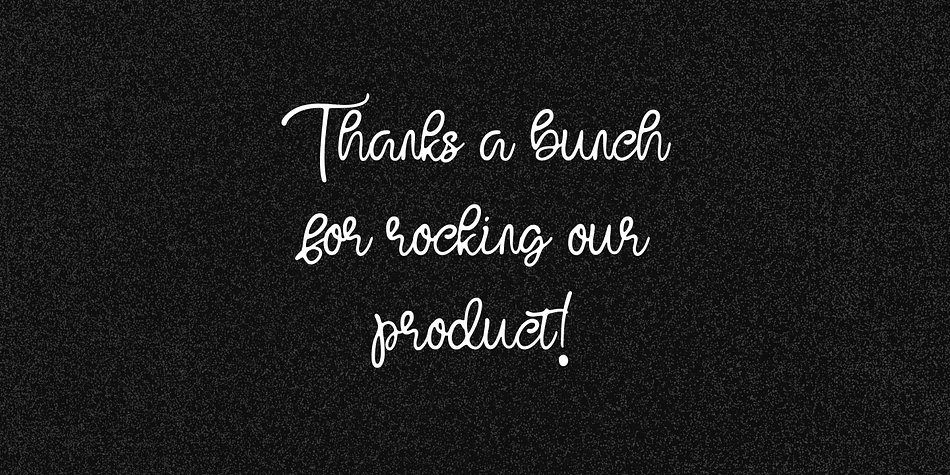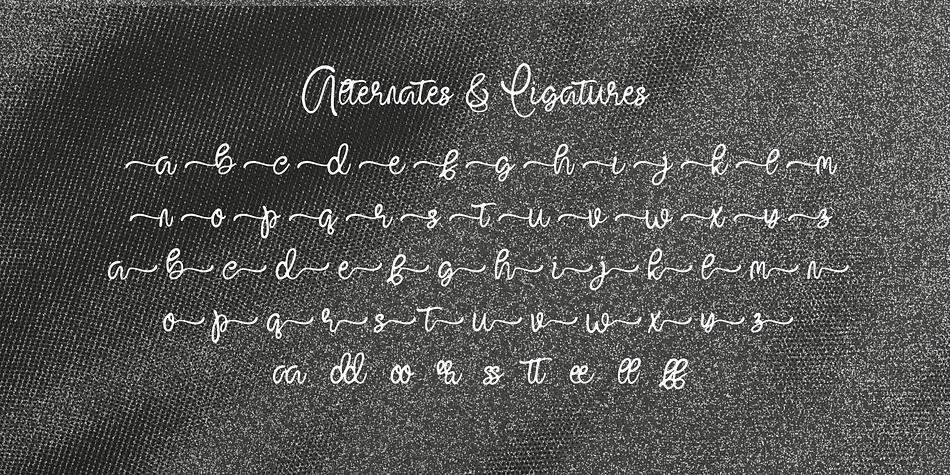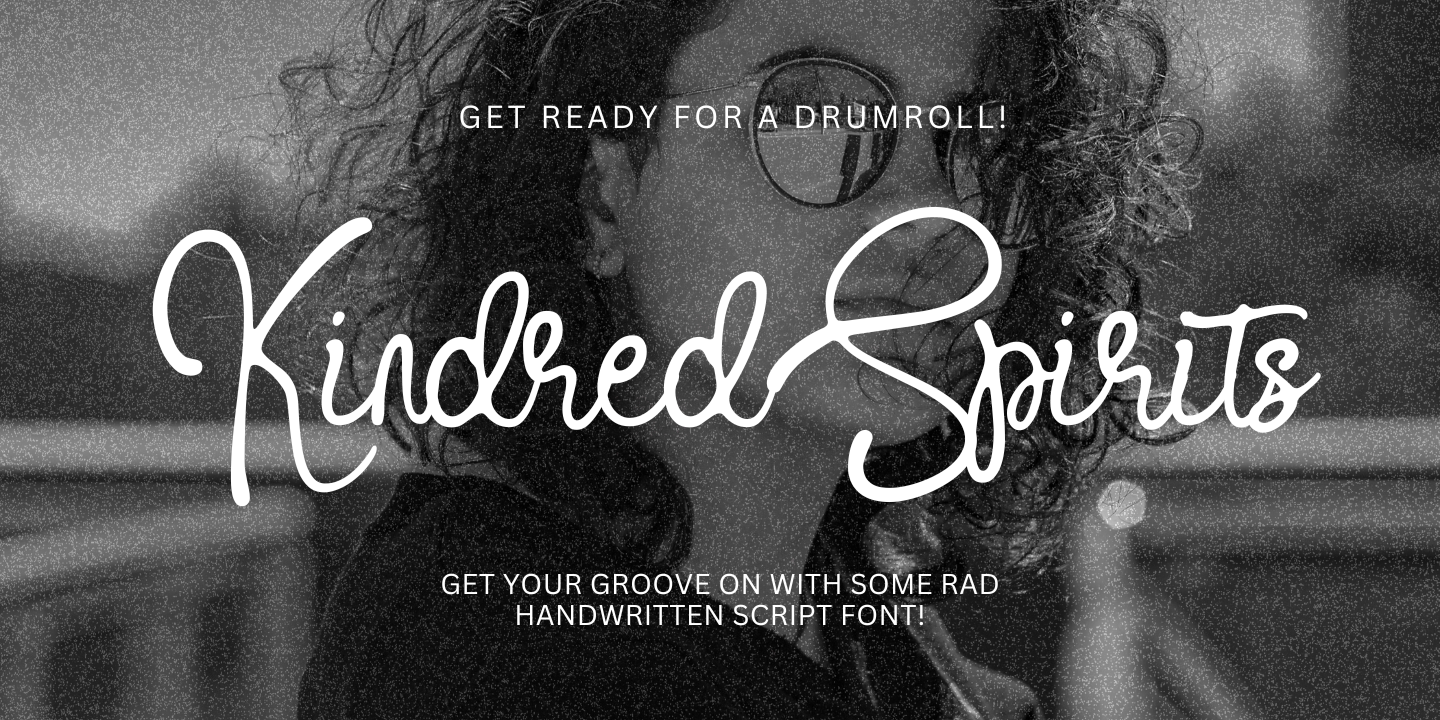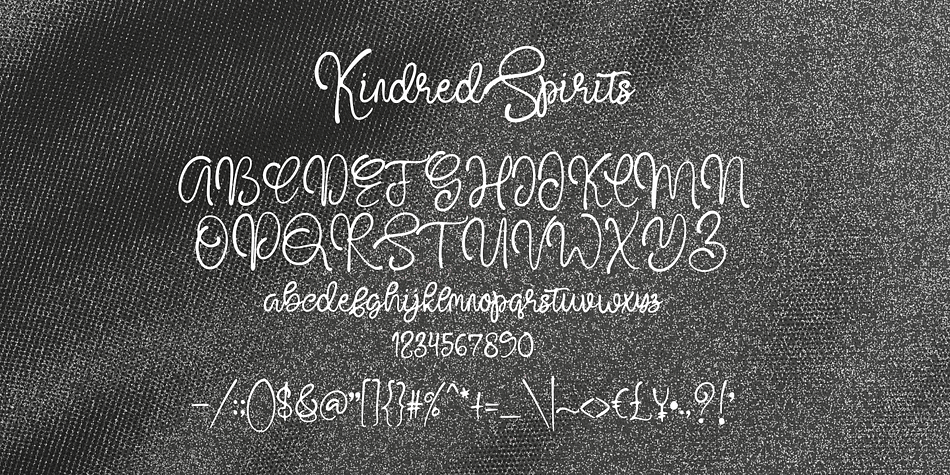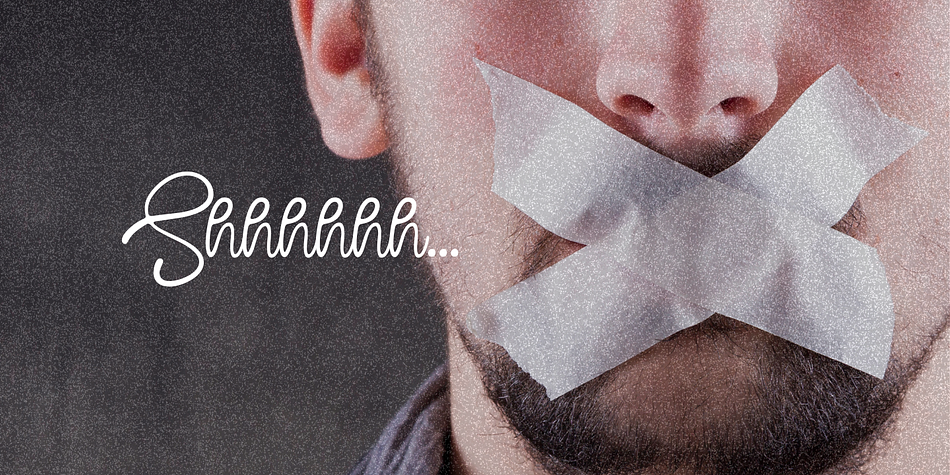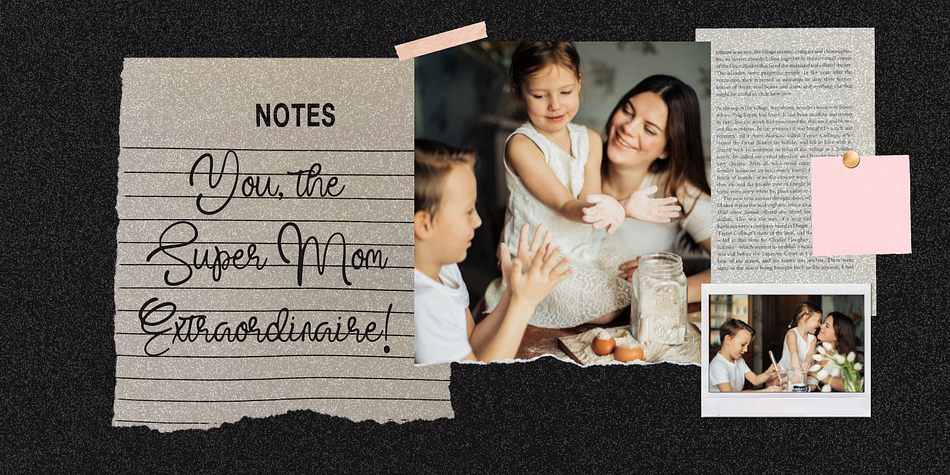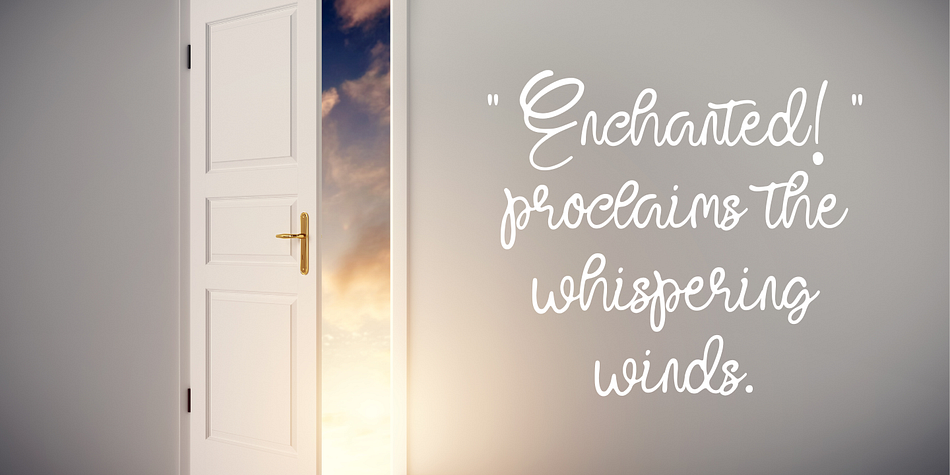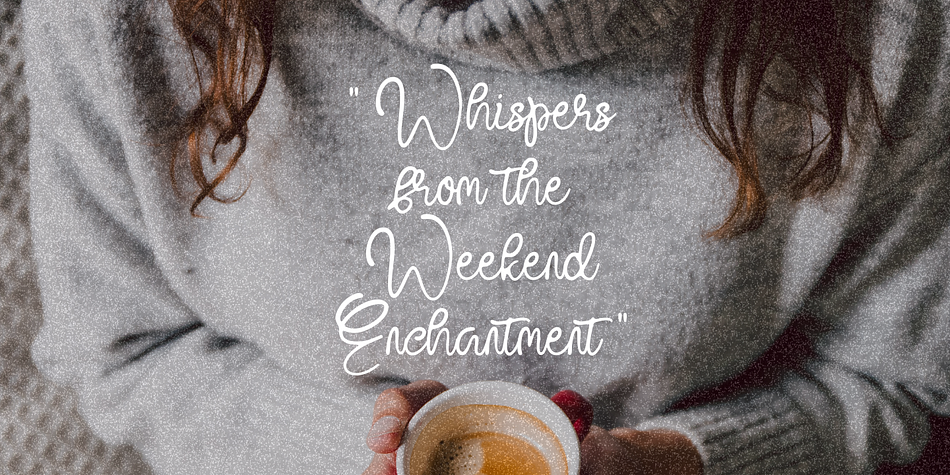
KindredSpirits
KindredSpirits is a script font family published by Gatype.
Presenting KindredSpirits, a captivating handwritten font with a distinctive flair. Perfect for logos, social media posts, and ads. KindredSpirits brings a unique touch to product packaging, designs, and labels. Its artistic style enhances wedding invitations, stationery, and other projects with a touch of charm.